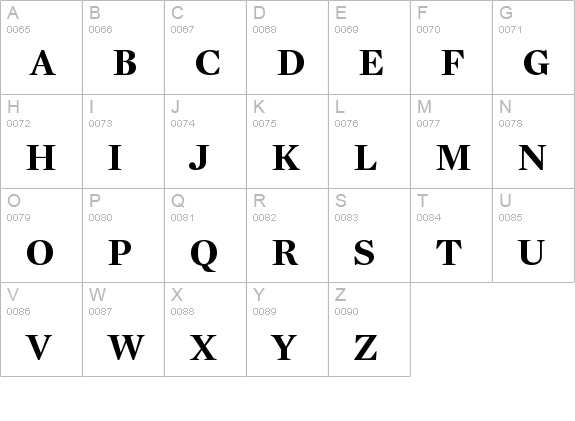
Mercury Display Bold SC Font Details
Mercury Display Bold SC is a strong, high-contrast variant in the Mercury typeface family \xE2\x80\x94 well suited to headlines, attention-grabbing titles, and strong calls-to-action.